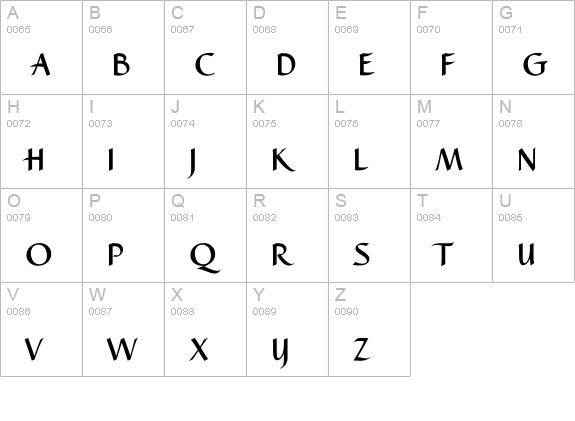
Caterina Bold is a strong, high-contrast variant in the Caterina typeface family \xE2\x80\x94 well suited to headlines, attention-grabbing titles, and strong calls-to-action.
Caterina Bold is a stunning and elegant font that exudes sophistication and style. Its bold and eye-catching design makes it perfect for a wide range of projects, from branding to editorial design. The modern and versatile look of Caterina Bold will ensure your text stands out and leaves a lasting impression on your audience. The best part? Caterina Bold is absolutely free to download at FontsMarket.com. This means you can elevate your designs without breaking the bank. Don't miss out on this fantastic opportunity to enhance your projects with the beauty and professionalism of Caterina Bold font. Download it now and take your designs to the next level!